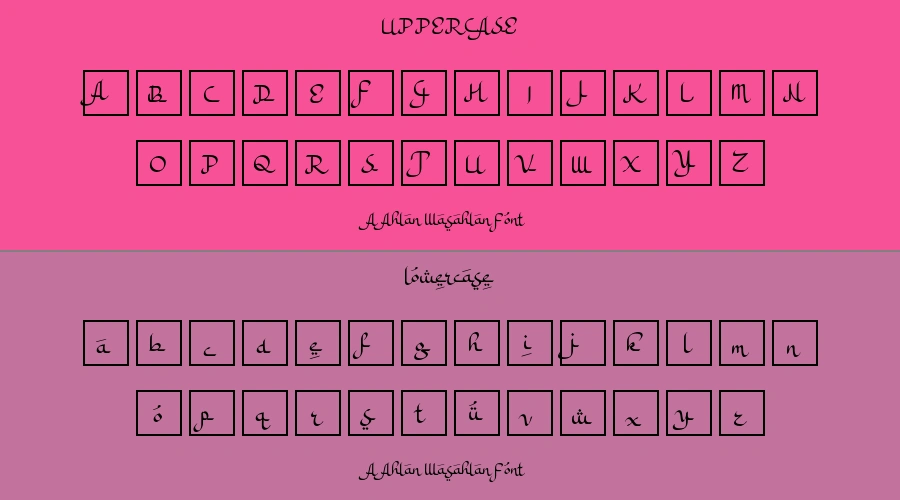
About A Ahlan Wasahlan Font
A Ahlan Wasahlan Font stands out for its distinctive combination of precise alignment and versatility. Ideal for scientific papers, it provides the reliability and craft excellence that professional projects demand. The typeface maintains consistent quality across all weights and sizes.
Key features include refined high x-height and practical case-sensitive forms, enhancing typographic expression. In book chapters applications, A Ahlan Wasahlan Font demonstrates exceptional footnote clarity. The serif length and historical reference contribute to its distinctive character and professional appeal.